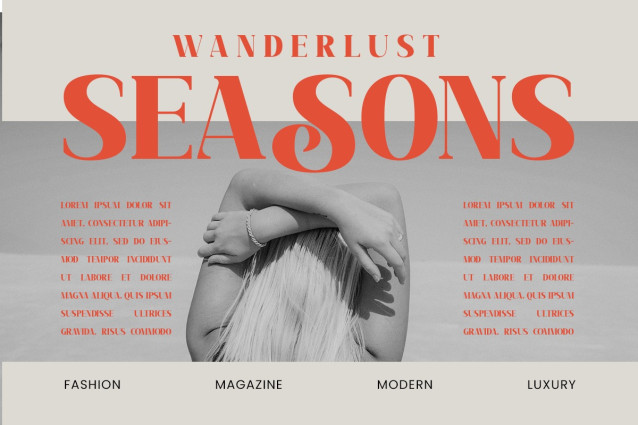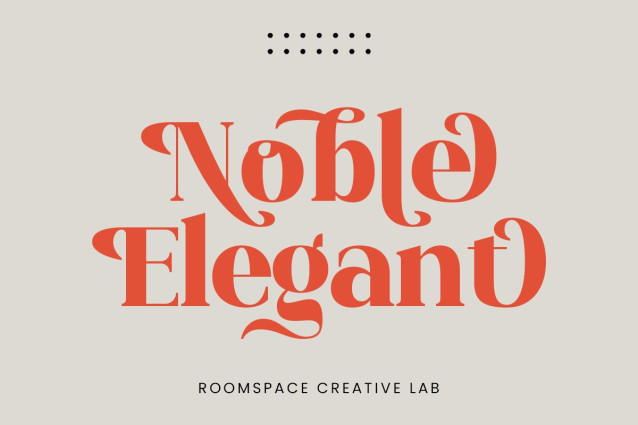
Noble Elegant Font
Noble Elegant is a high-class serif font that combines traditional serif elegance with a modern twist. Featuring unique swashes and subtle echoes, this font brings a touch of sophistication to every project. Perfect for luxury branding, refined logos, editorial layouts, and wedding stationery,
Noble Elegant stands out with its graceful curves and distinct style. Designed to add a luxurious feel to any text, this font is versatile for both vintage and contemporary aesthetics, making it an essential choice for designers seeking refinement and style.